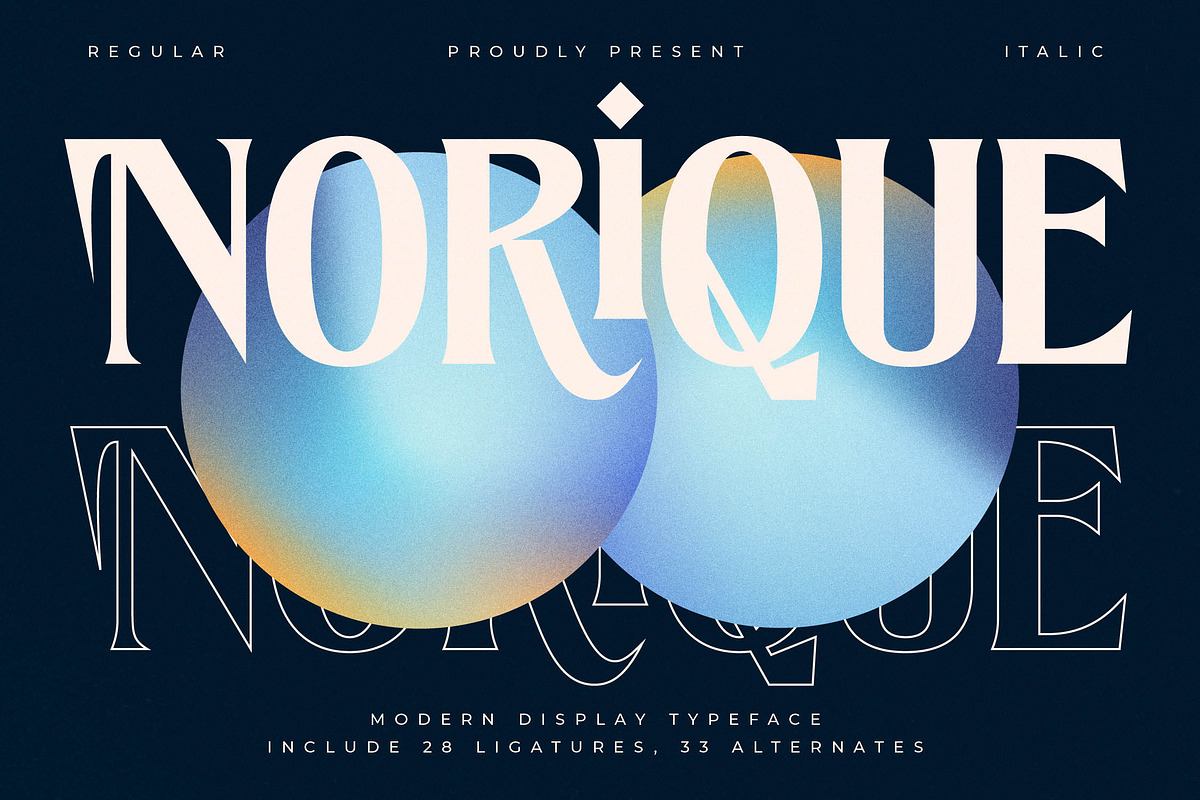
Norique Modern Display Typeface Free Download is a sleek and artistic font crafted for bold, fashion-forward designs. With its unique letterforms, high contrast strokes, and stylish flair, Norique is perfect for editorial headlines, luxury branding, product packaging, and statement logos that need a distinct and modern edge.
Norique Modern Display Typeface Free Download blends contemporary sophistication with creative expression, making it a go-to choice for designers who want their work to stand out. Whether you're designing a fashion campaign or an eye-catching title, Norique delivers elegance with attitude. Download it today and bring bold, modern beauty to your next project.